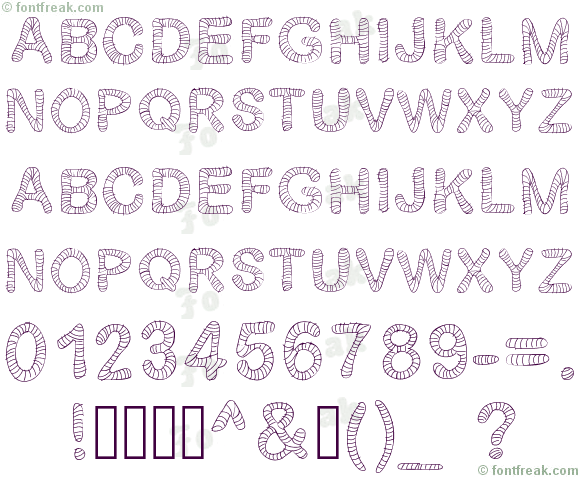
Gelstripped
About Gelstripped
Gelstripped, designed by Peax Webdesign, is a distinctive decorative typeface that brings a playful and whimsical touch to any project. This font is characterized by its unique striping effect, which gives each letter a dynamic and textured appearance. The strokes vary in weight, creating a lively contrast that draws the eye and adds a sense of movement. The spacing between characters is thoughtfully crafted to maintain readability while allowing the decorative elements to shine, making Gelstripped an engaging choice for visual communication.
This font is particularly well-suited for a variety of creative applications. Its playful nature makes it an excellent choice for children’s book covers, where it can capture the imagination of young readers. Additionally, Gelstripped works beautifully for event flyers or posters, adding a cheerful vibe to announcements. For those in the food industry, it can lend a fun personality to restaurant menus, enticing customers with its lively aesthetic. It is also a great option for party invitations, where its unique style can set the tone for celebrations.
The target audience for Gelstripped includes graphic designers, small business owners, and content creators looking to make a bold statement with their typography. Whether you are designing for a digital platform or print media, this font can elevate your project with its artistic flair.
What sets Gelstripped apart is its ability to blend whimsy with functionality. It offers an engaging visual experience without sacrificing readability, making it a versatile choice for various design needs. With the Gelstripped font free download available, you can easily incorporate this unique typeface into your creative toolkit and let your projects stand out.